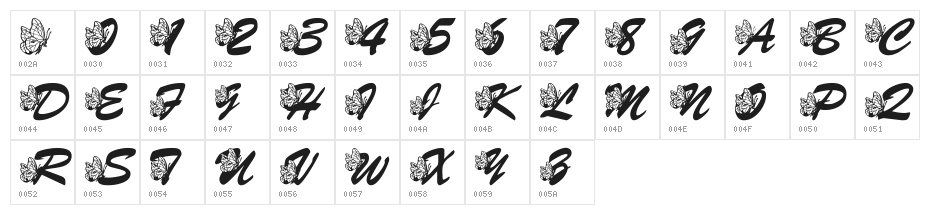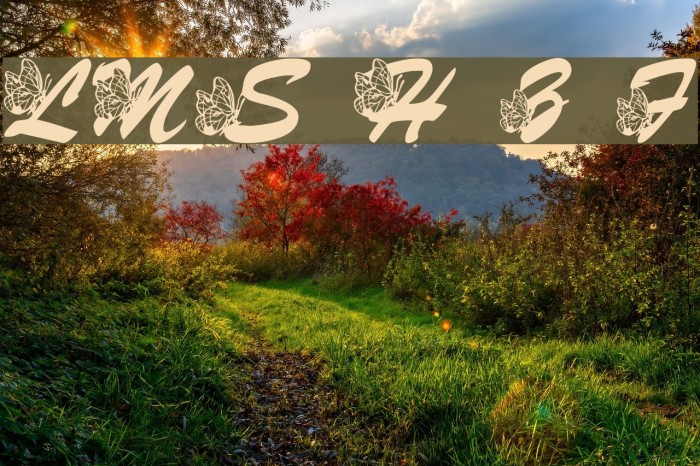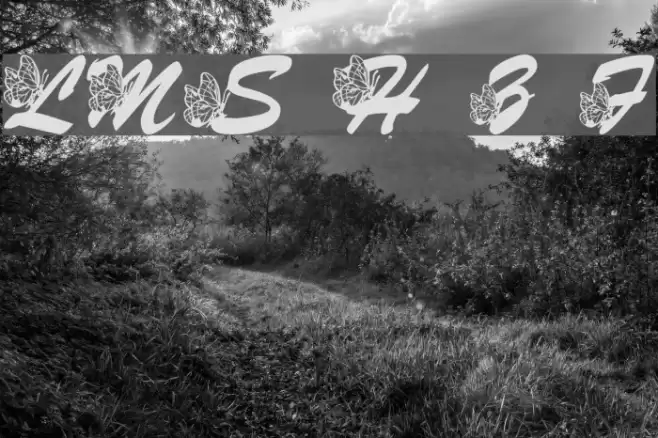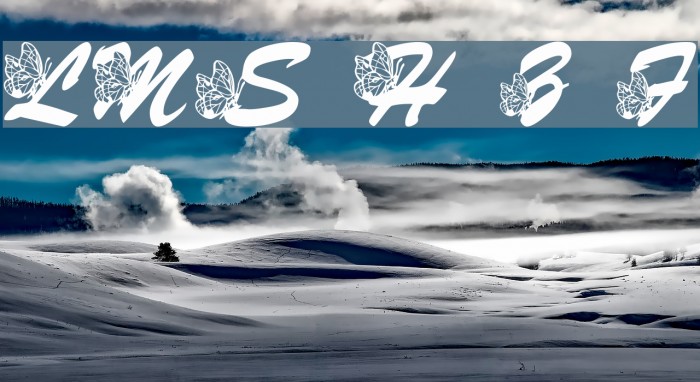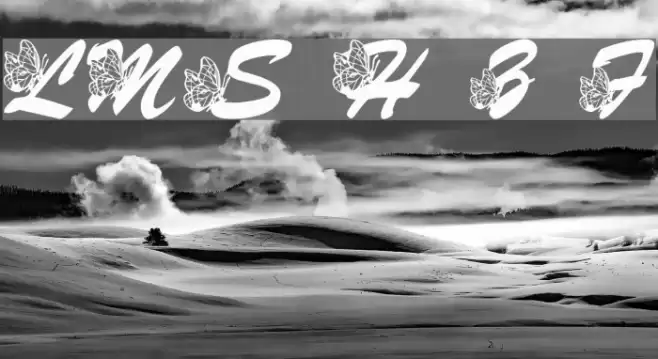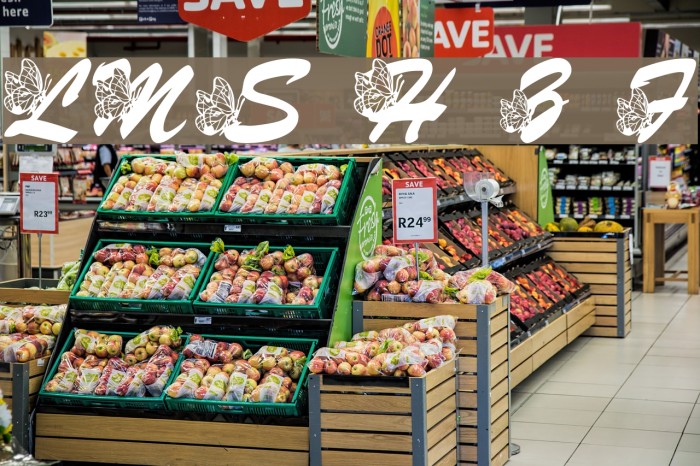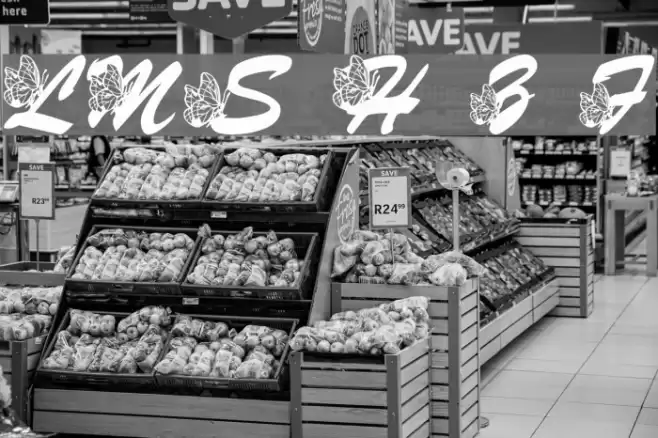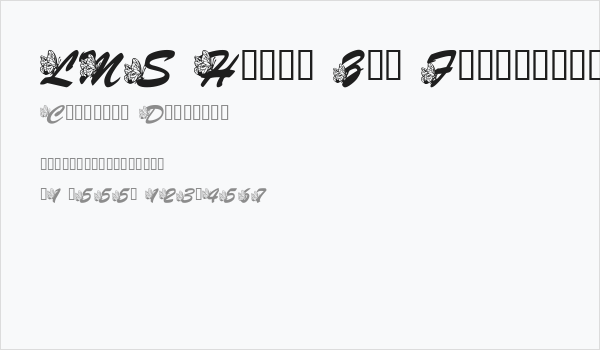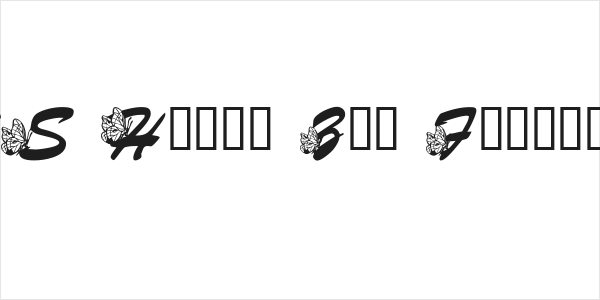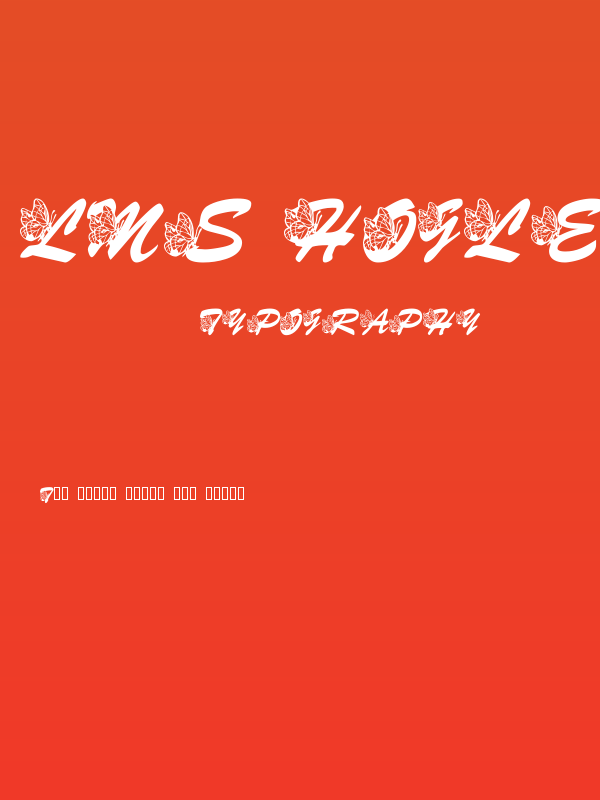
LMS Hogle Zoo Flutterbys Font
LMS Hogle Zoo Flutterbys Description
This font features a whimsical and decorative style, incorporating butterfly motifs seamlessly integrated with each character. The letters are bold and script-like, with a flowing, cursive appearance that adds a playful and artistic touch. Each character is adorned with a butterfly, creating a unique and eye-catching design. The font is highly decorative, making it ideal for projects that require a touch of elegance and creativity. The overall style is both modern and artistic, suitable for a variety of creative applications.
| Proposed Projects | Ideal for greeting cards, invitations, children's book covers, and artistic branding projects. |